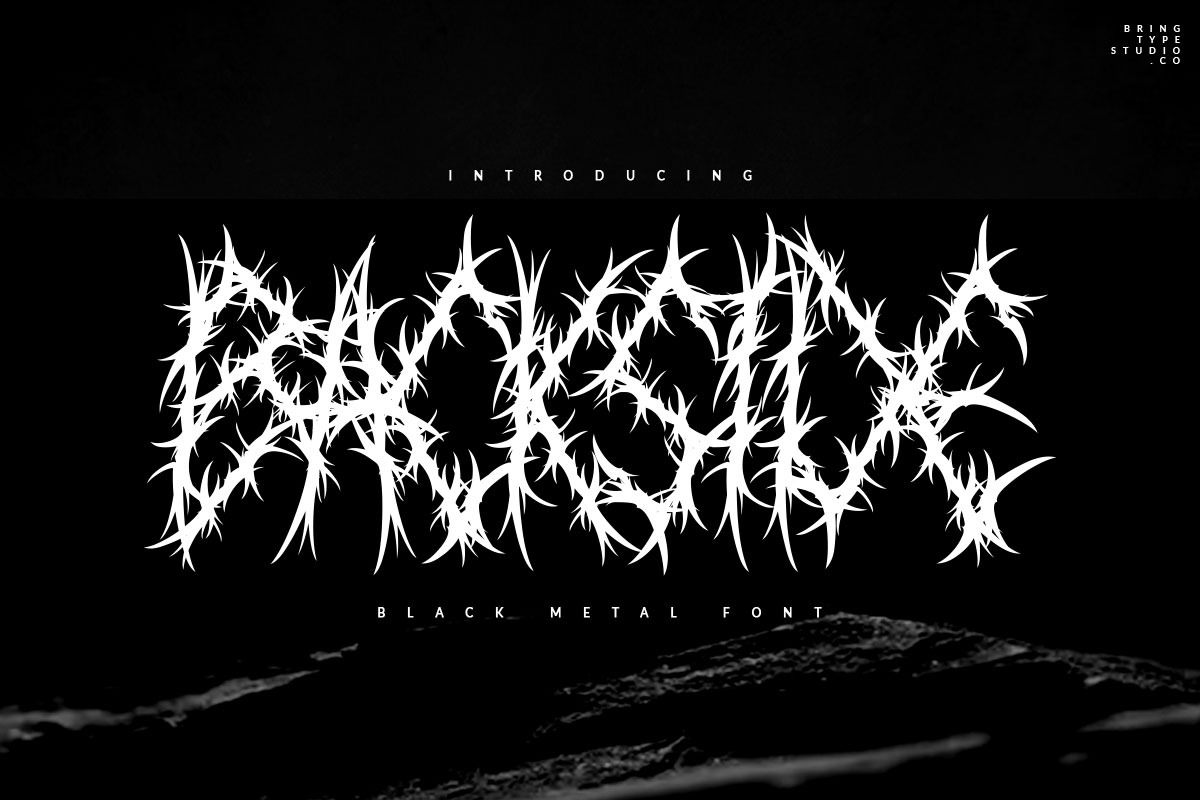
BACKSIDE | BLACK METAL FONT
Hello everyone ...... this is a BACKSIDE made with a square line and an exact curve between one and the other, this font is perfect for branding, headings, signatures, logos, blogs, wedding invitations, t-shirts, letterheads, merchandise, signage, labels, news, posters, badges, etc. HILDANE also includes multilingual, numbers, alternatives, punctuation.